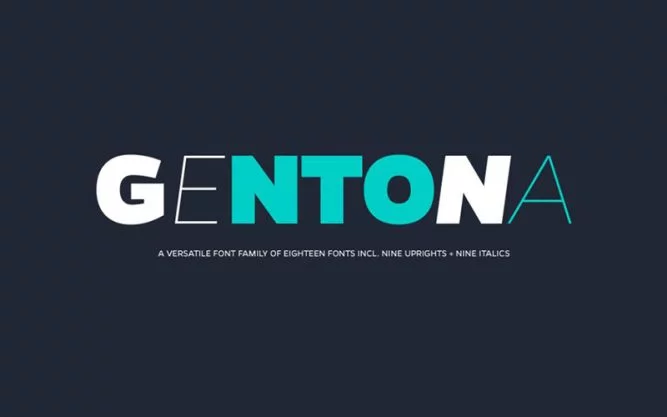
Gentona Font is a neo-grotesque and modern sans serif typeface that has greatly condensed text form. Mr. Rene Bieder took charge of designing and publishing this fine-quality font.
This stunning font is available in 18 unique styles including bold, italic, book, etc. In this font family, two styles of Gentona Extrabold and Gentona Extrabold italic are available as demos.
Also, using this typeface for headings and title headers would be a good idea. Due to the elegance and uniqueness of the font, many designers are working with it and creating amazing designs for their users.
When you look at its structure, you will feel that a robot has drawn all its characters. But in reality, the designer has designed this modern font in such a way that it looks unique.